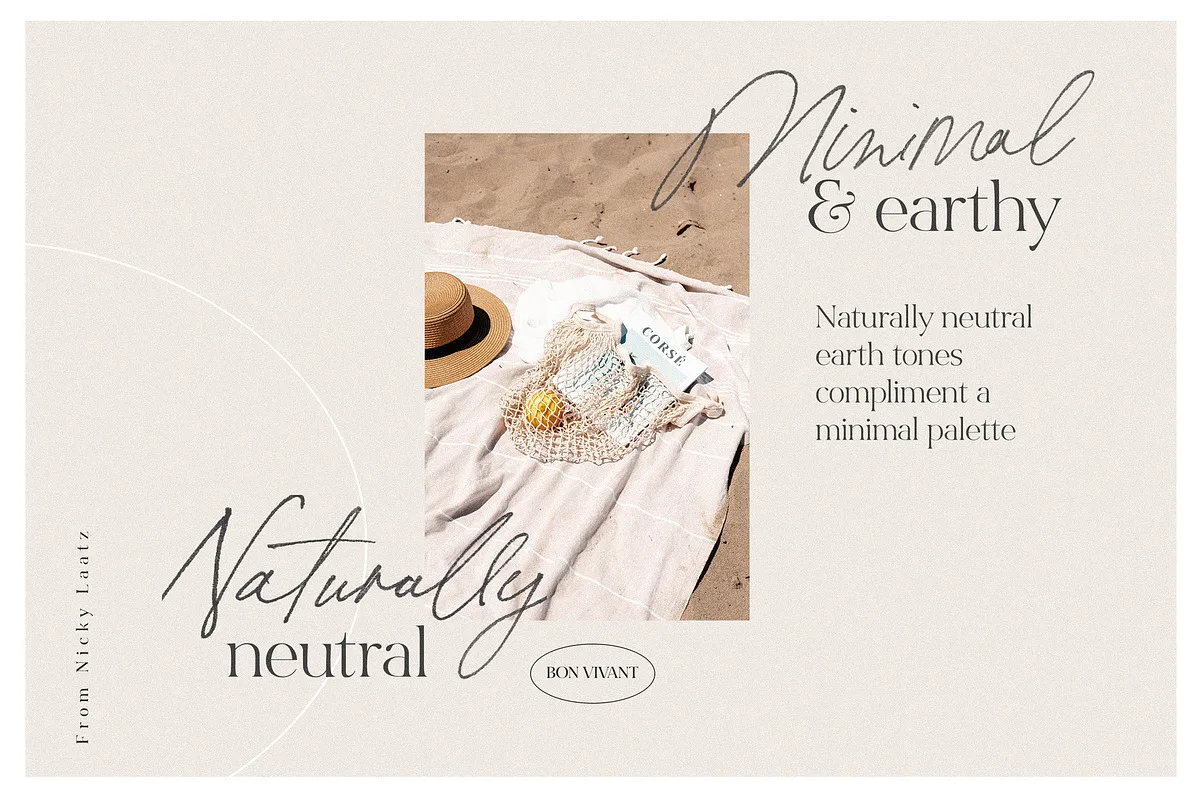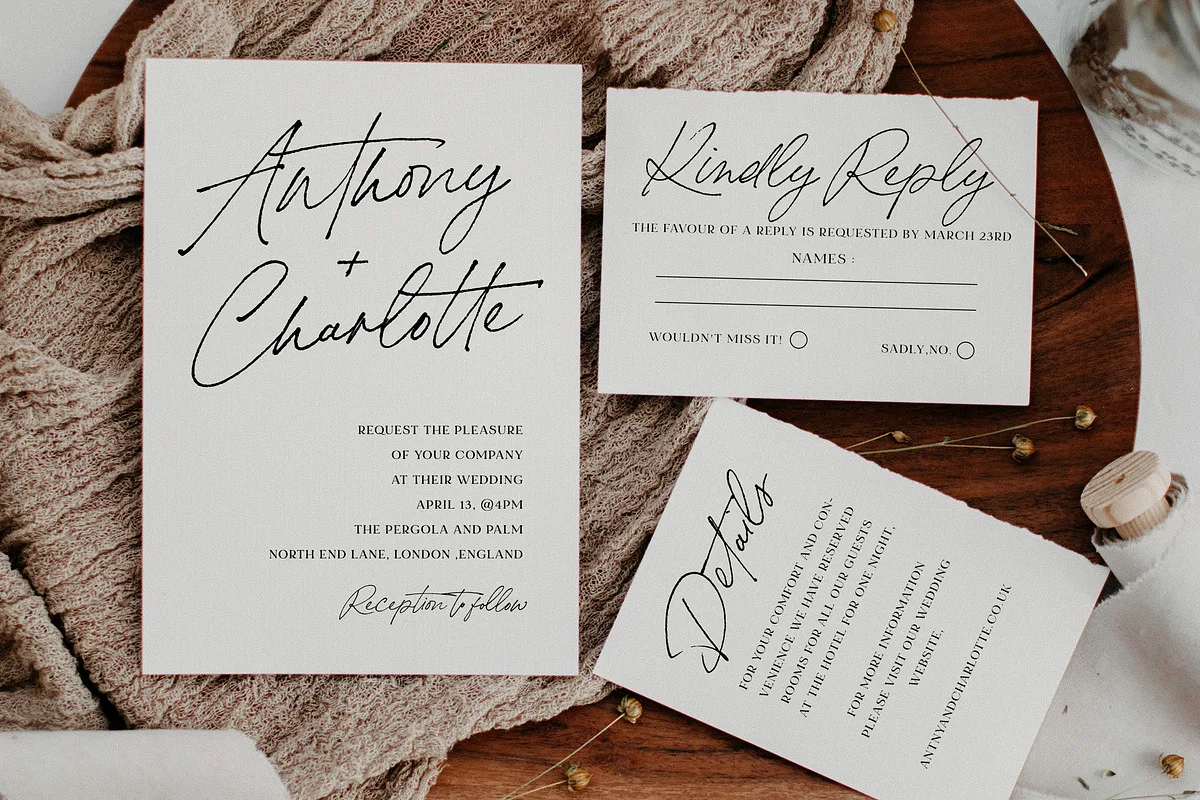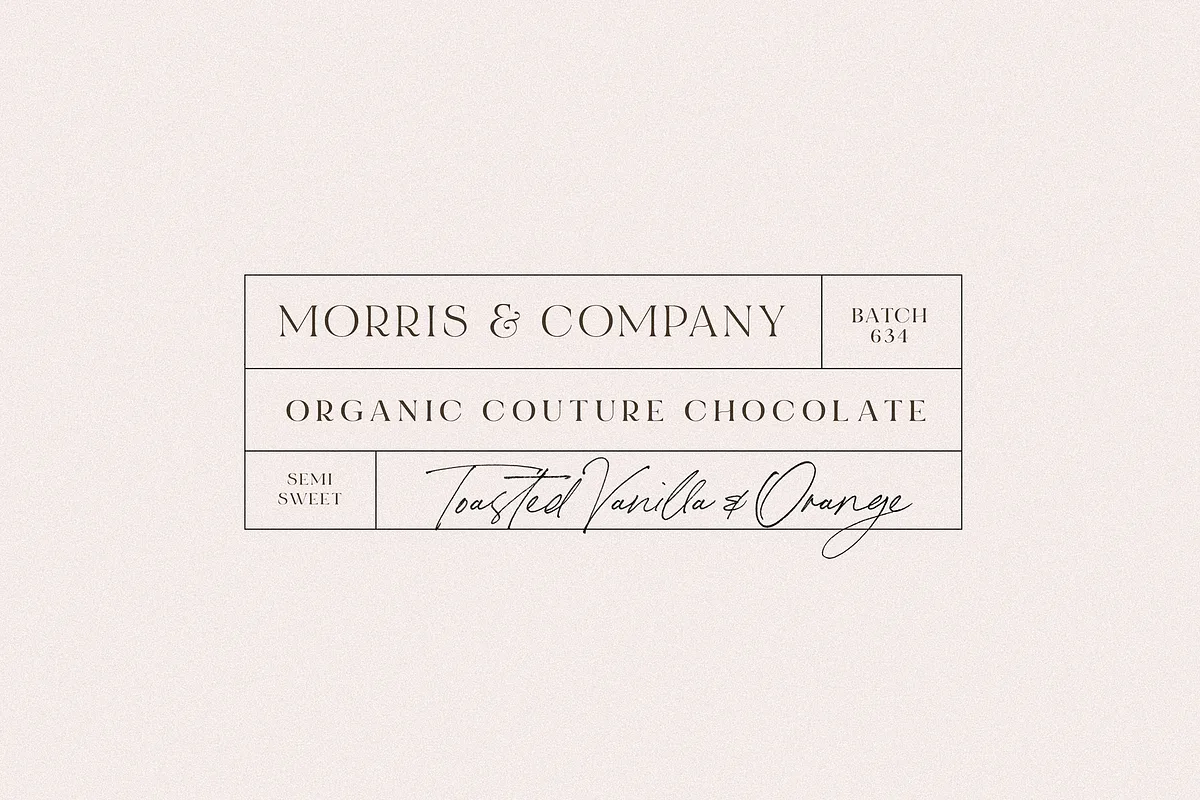
Bon Vivant Font Collection is perfect for those with style and a love for life’s luxuries. Add a touch of elegance to your projects today. It is perfect for product packaging, movie posters, art posters, quotes, logo design, etc.
Bon Vivant Script Font is available as both a bitmap OpenType SVG font and a Regular Opentype font. – The Script includes a large selection of automatic ligatures – they make your type look more like natural handwriting rather than a font.
Bon Vivant Serif Font comes in 2 weights, regular and bold. The serif has uppercase, lowercase, all punctuation and numerals.